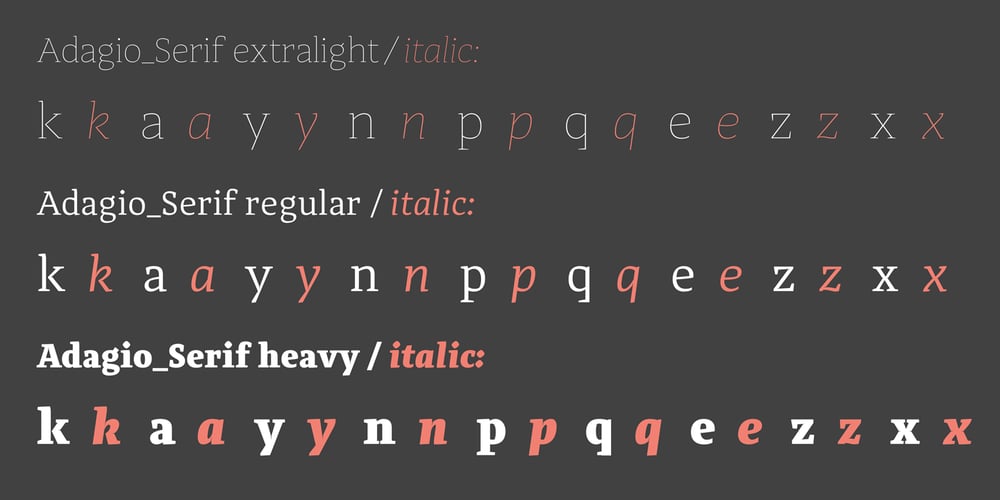
Adagio Serif Font Family was designed by Mateusz Machalski and published by Machalski. Adagio Serif contains 17 styles and family package options. The Adagio Family is a part of Mateusz Machalski’s, Warsaw Academy of fine arts Master Degree Diploma in multimedia studio, conducted by Professor Stanisław Wieczorek and his brave PHD Jakub Wróblewski. Adagio is a modern type family. It consists of 3 main varieties: sans, serif and slab. Each one of them has its own “true italic” set. All of the styles together have over 400 characters in 9 different thicknesses. The Adagio family was created mostly for company identities. The idea was to create a wide range of different varieties which are stylistically consistent. Adagio Serif – Characterises with strong contrast and high detail in calligraphic character cuts, what gives it a light feeling. Unlike the Slab version, serif variety has asymmetrical serifs. Thanks to large X length, and highly stretched descenders, it also works correct in longer text, while its strong detail is good for headlines. The Serif version is a great complement for Adagio Sans and Adagio Slab .